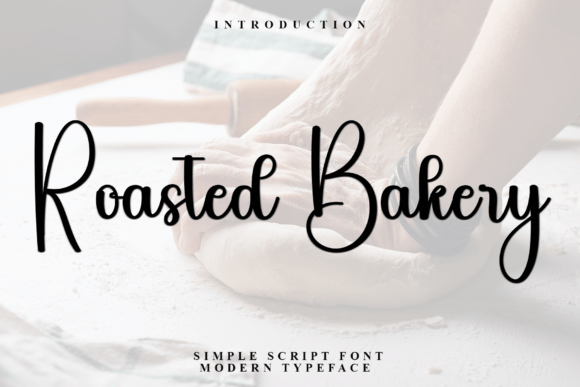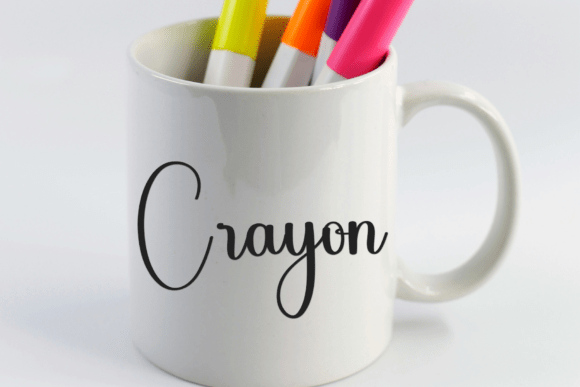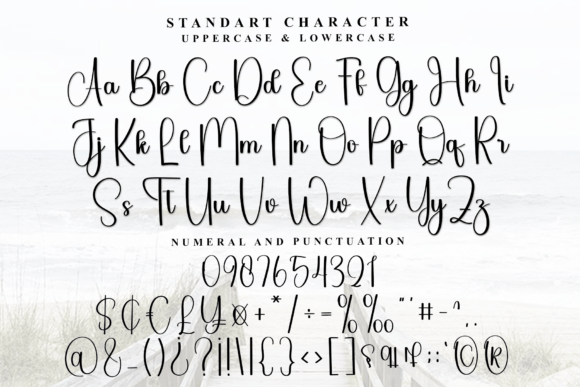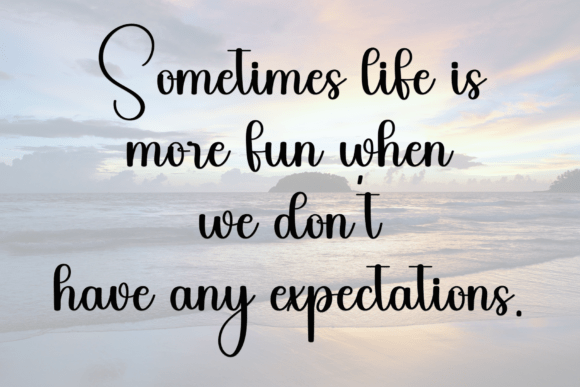
About the Roasted Bakery Font
The Roasted Bakery Font is here to transform your projects with its distinctive character and style. Roasted Bakery is a flowing handwritten font, described by an elegant touch, perfect for your favorite projects. Fall in love with its incredibly distinct and timeless style and use it to create spectacular designs!
Roasted Bakery’s elegant, flowing style makes it ideal for headlines, short text blocks on packaging, and branding elements where a touch of handcrafted charm is desired. It works exceptionally well in projects emphasizing artisanal products, cafes, or businesses with a vintage or rustic aesthetic. However, its script nature makes it unsuitable for body text or UI elements requiring high readability. Long paragraphs set in Roasted Bakery would be visually overwhelming and difficult to read.
For effective pairings, consider complementing its handwritten feel with a clean sans-serif like Open Sans for body copy, providing a strong contrast in readability. Alternatively, a classic serif font such as Garamond could create a sophisticated and timeless pairing, enhancing the overall elegance. Avoid pairing it with other highly decorative or script fonts, which would create visual clutter.
Its core personality is elegant yet friendly, conveying a sense of warmth and approachability. This makes it a perfect choice for projects that need to communicate both sophistication and approachability.